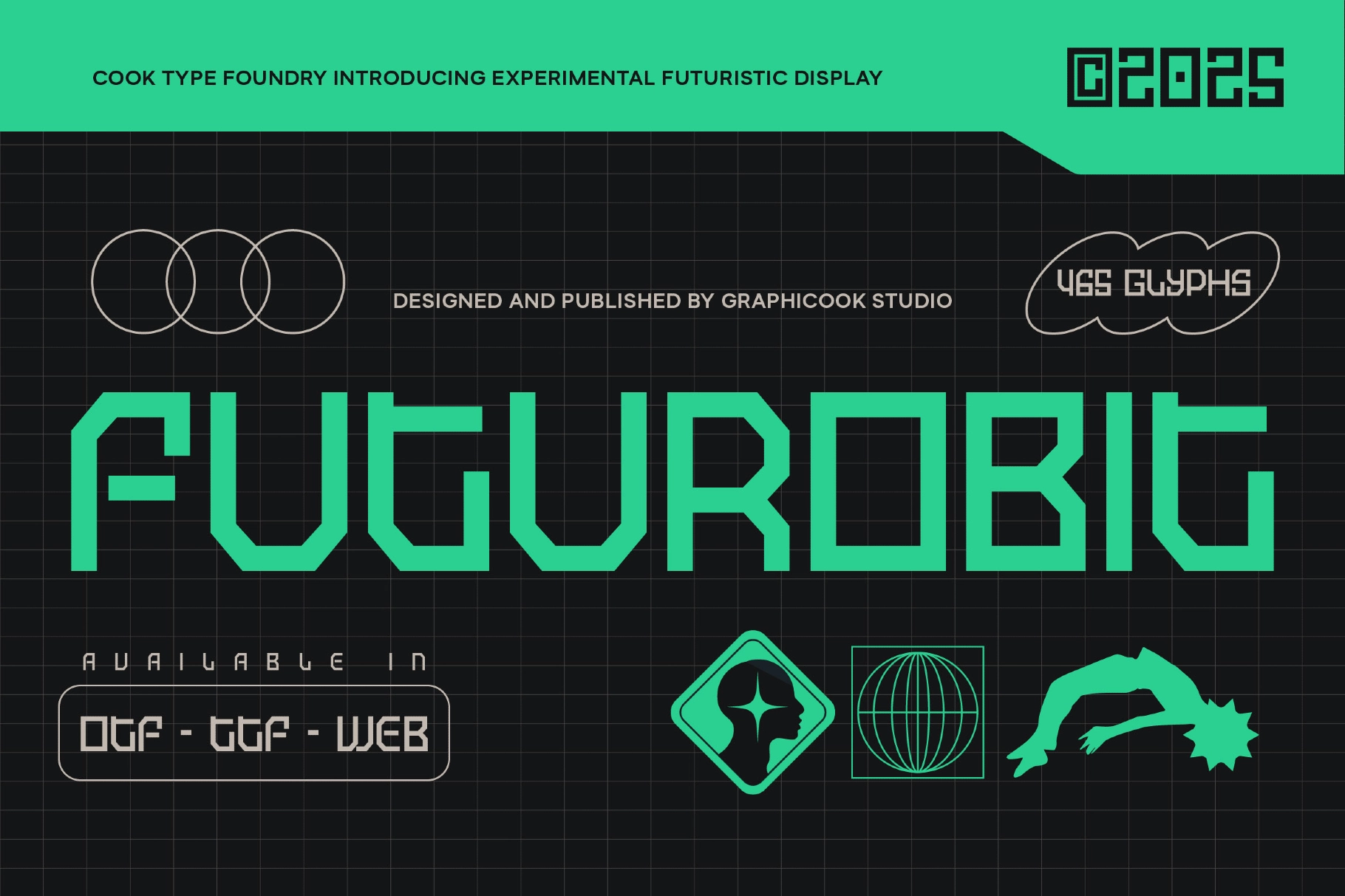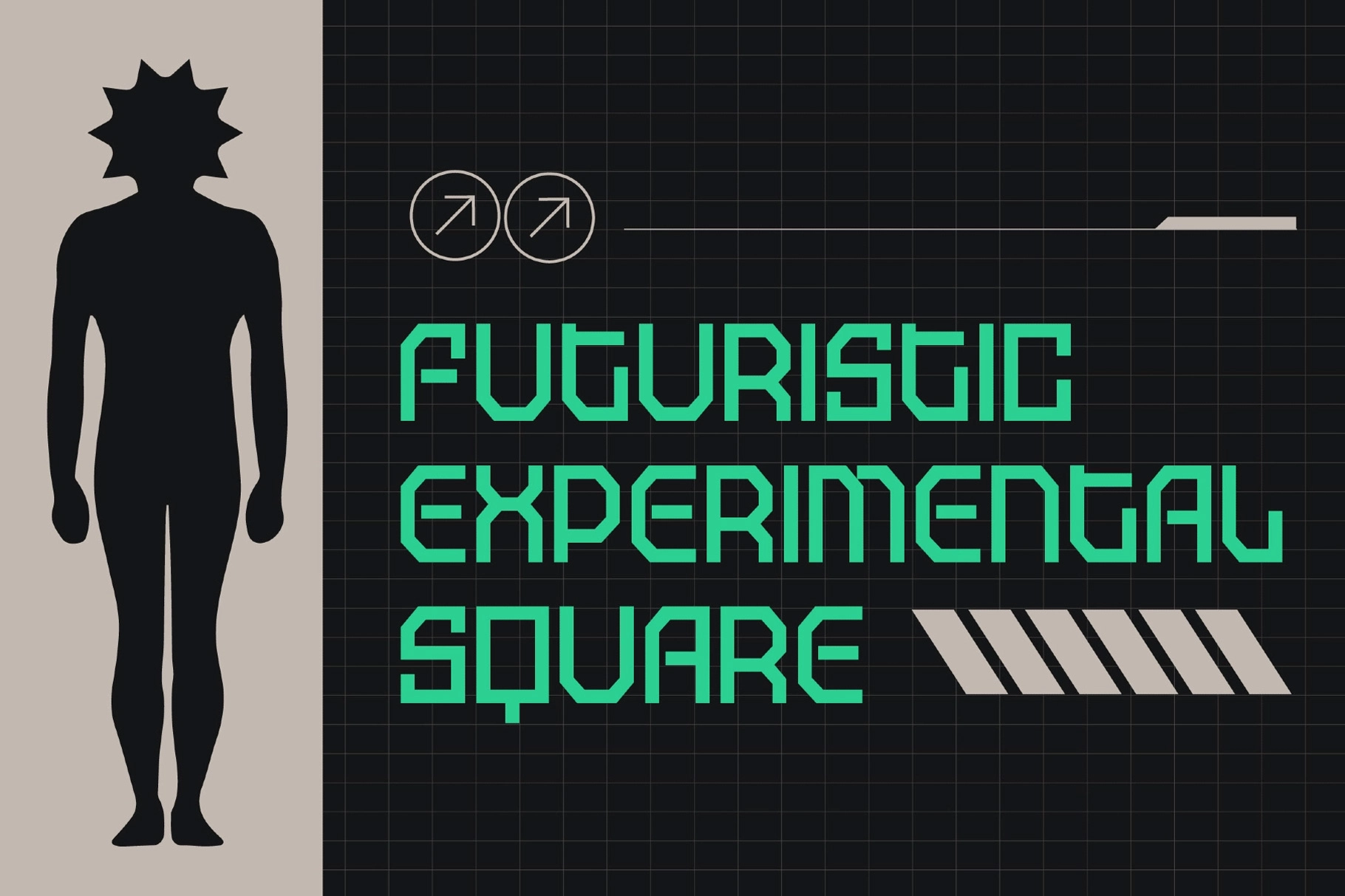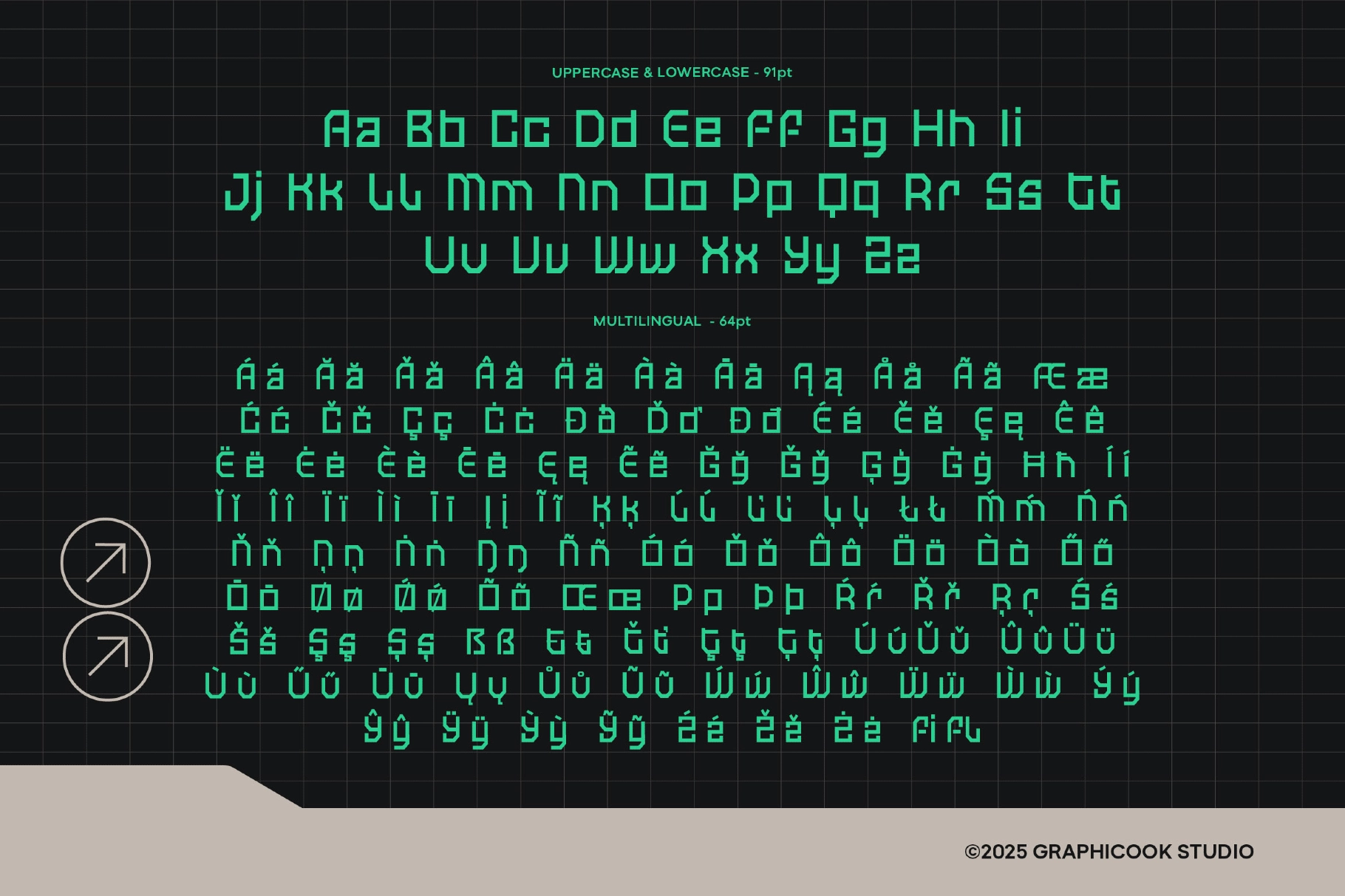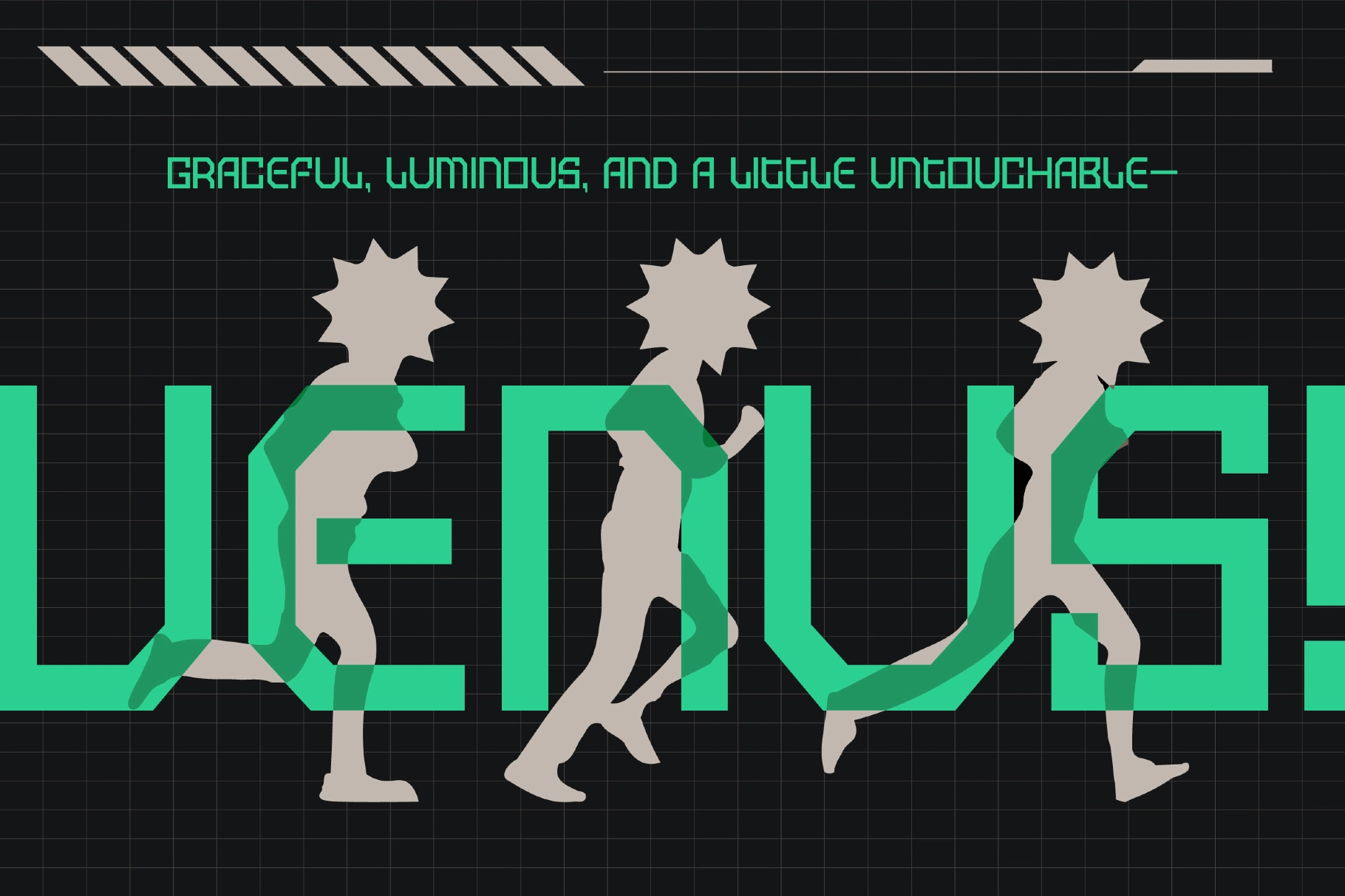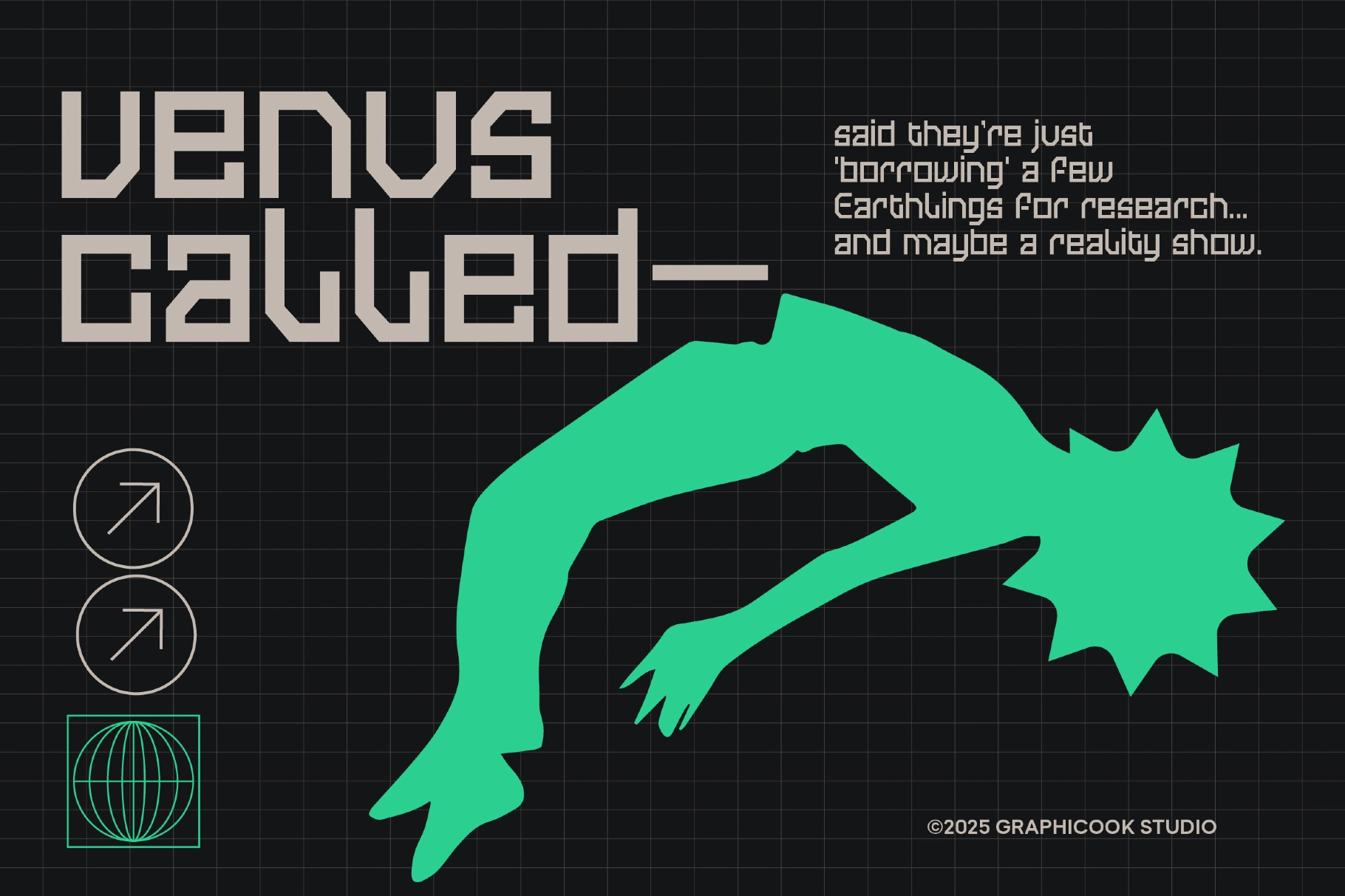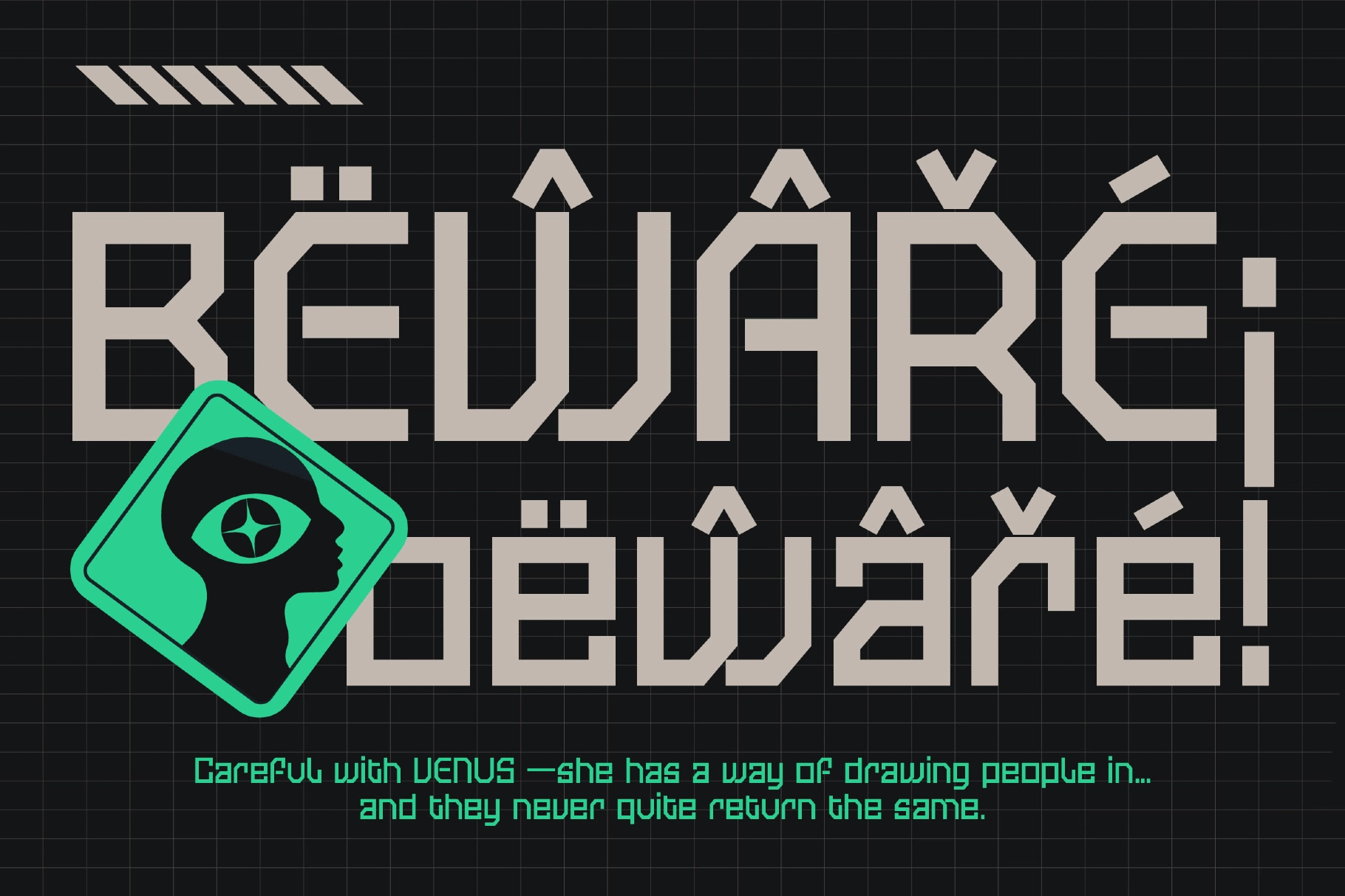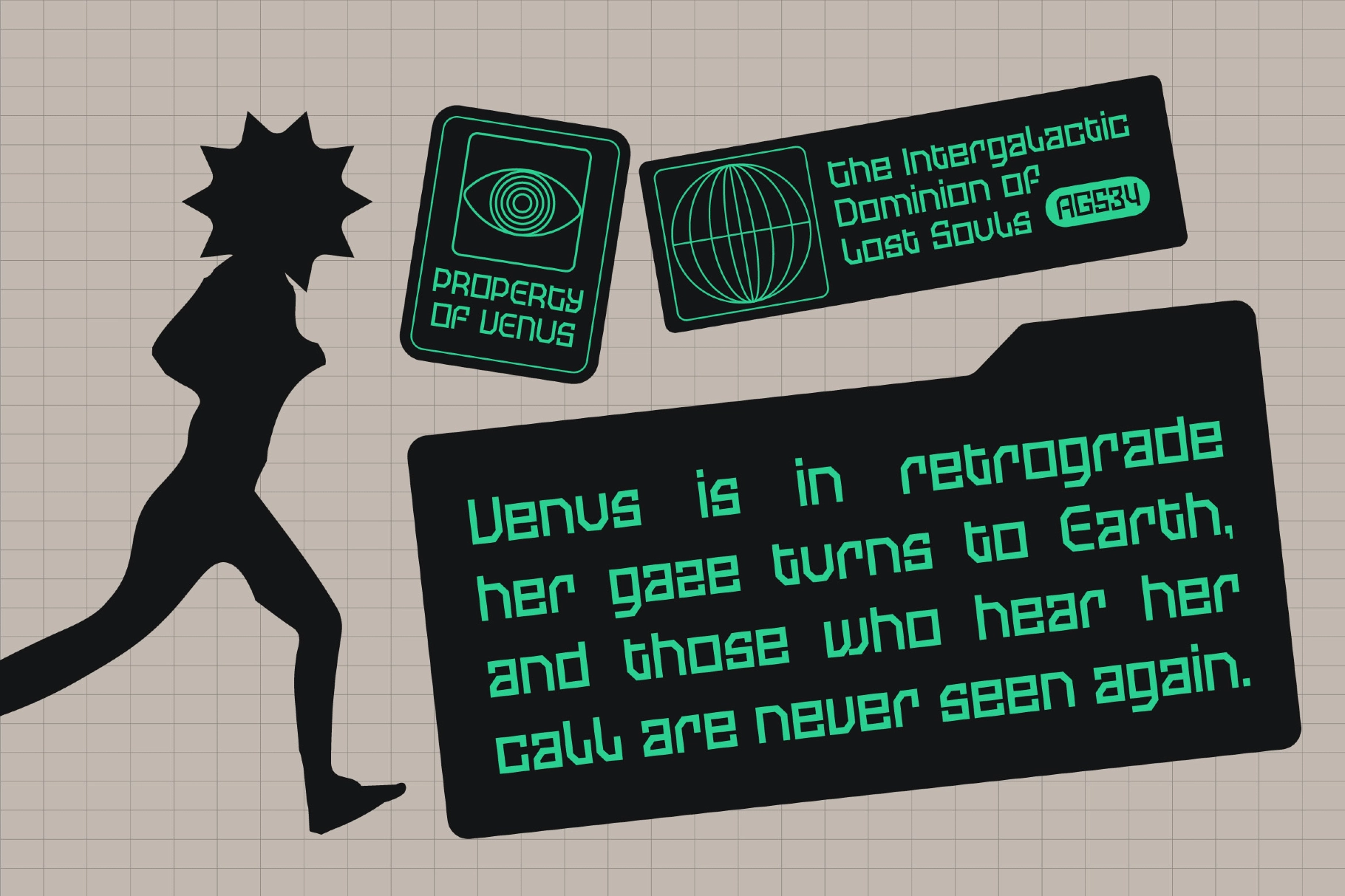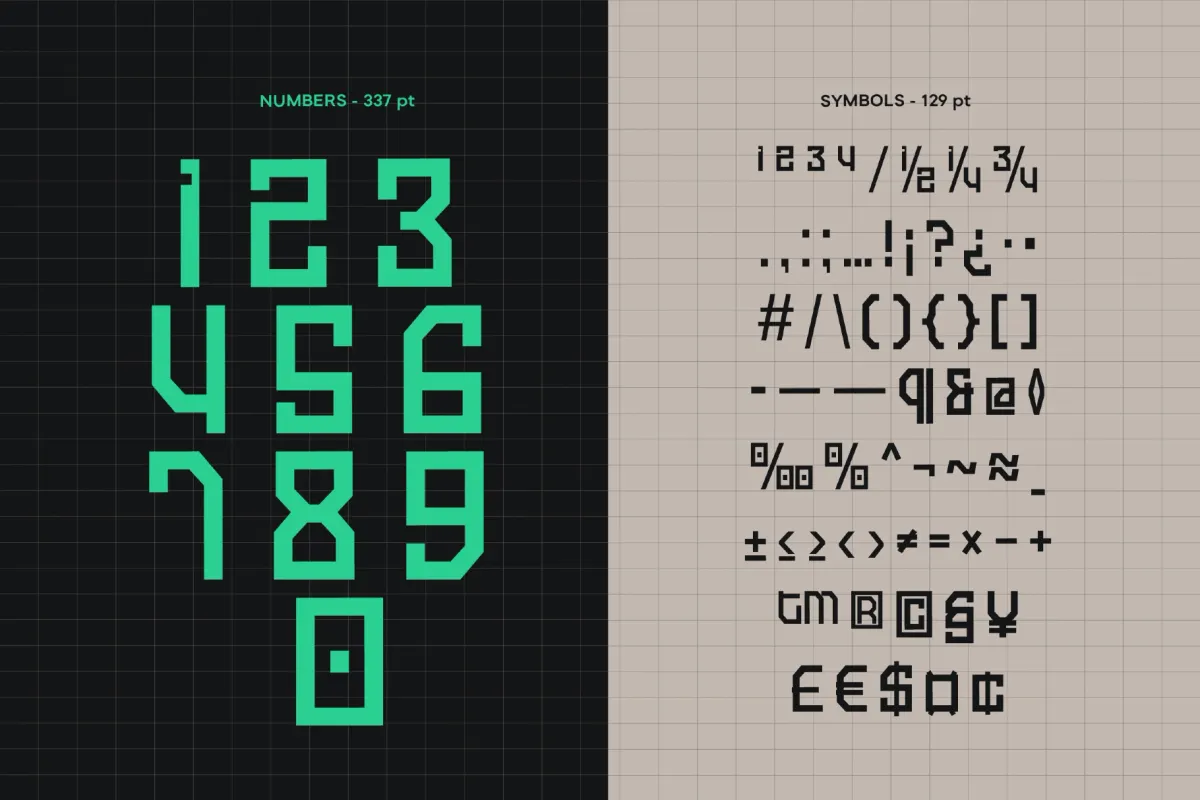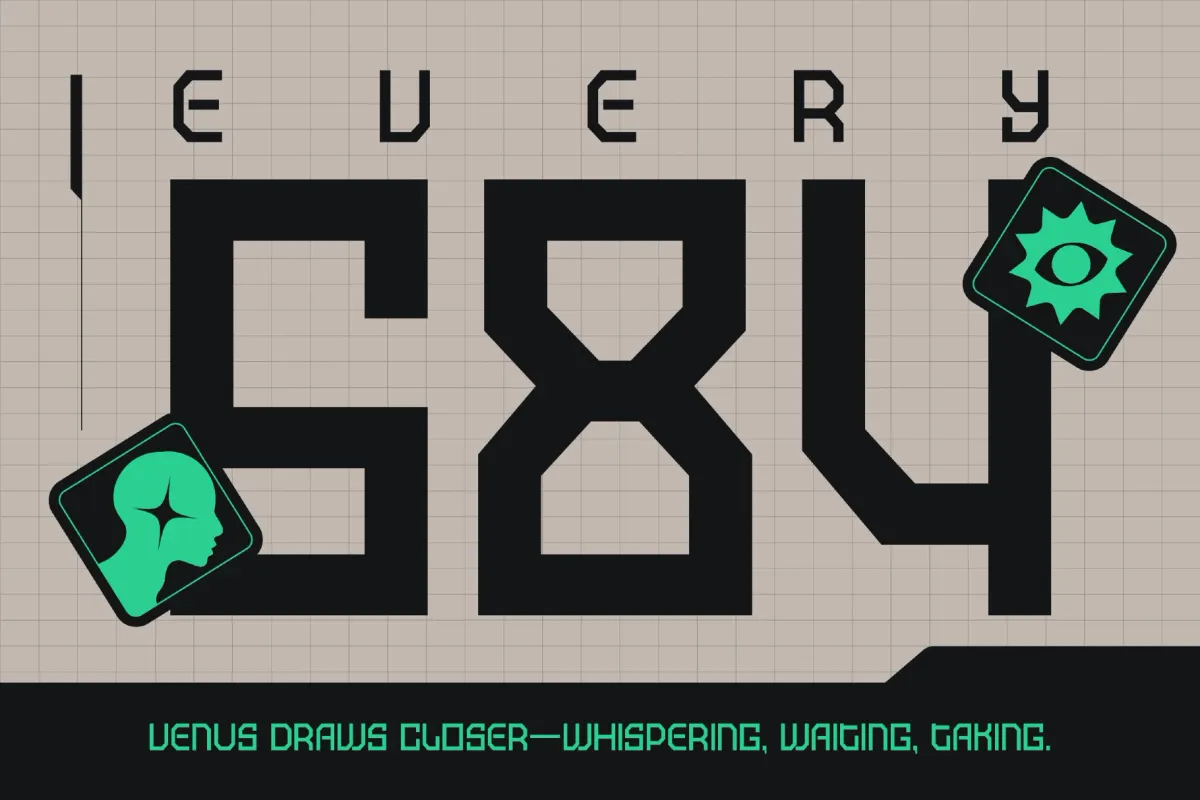
Futurobit Font
Futurobit
Futurobit is an experimental sans-serif font with square letterforms that deliver a modern, futuristic , and striking look, perfect for tech designs, posters, or games.